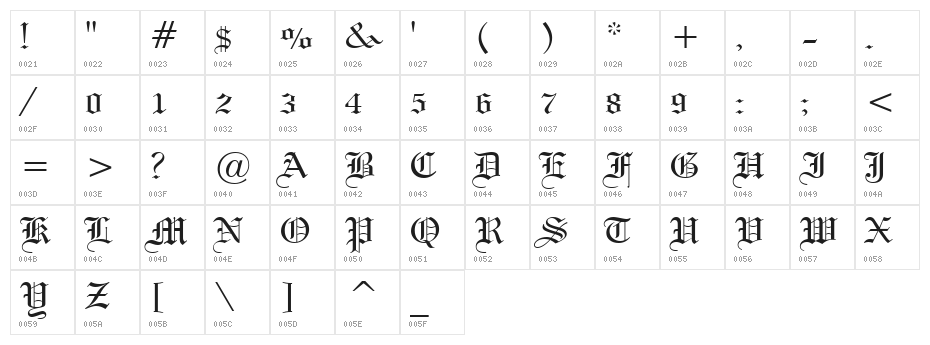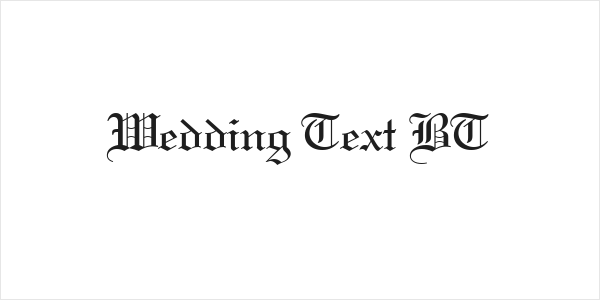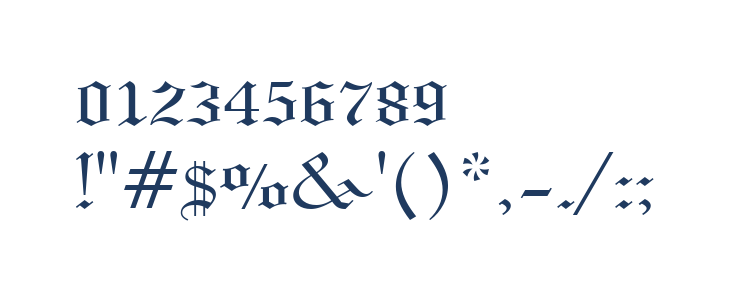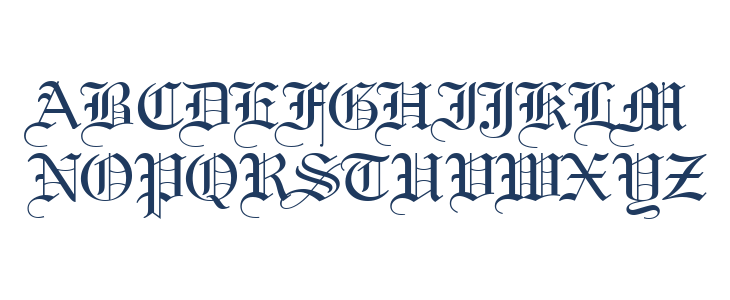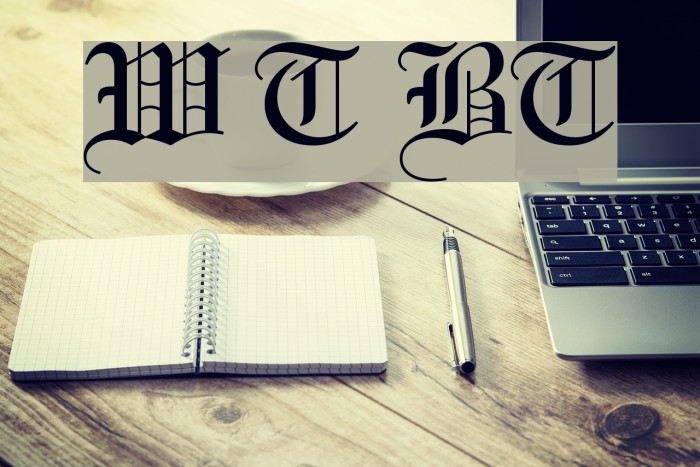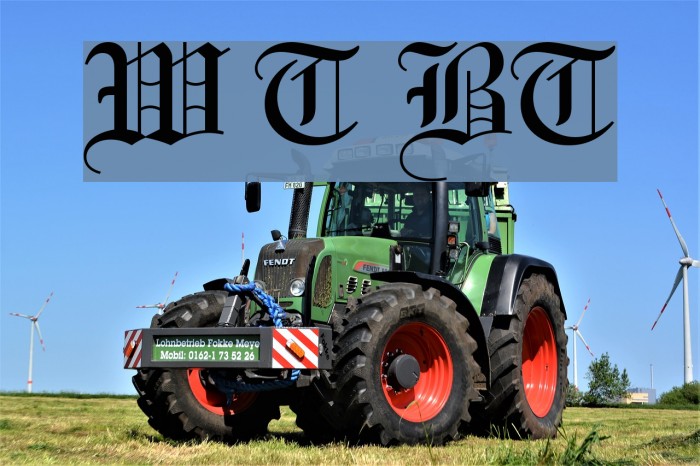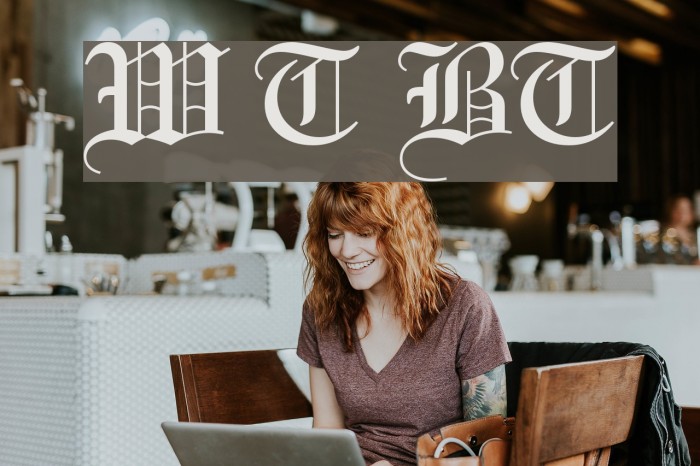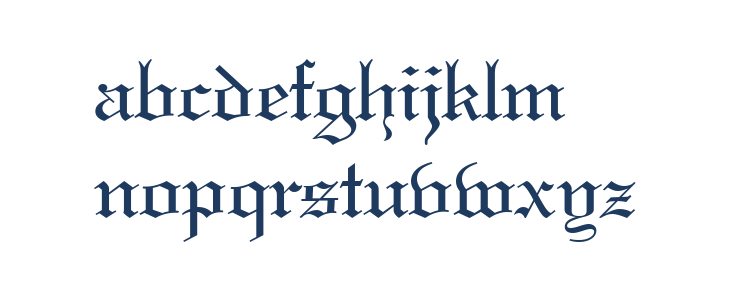
This font exudes a classic and elegant blackletter style, reminiscent of traditional calligraphy. The uppercase letters are adorned with intricate flourishes and sharp serifs, giving them a regal and formal appearance. The lowercase letters maintain a consistent style, with angular strokes and a slightly condensed form. Numbers and special characters are designed to match the ornate style, ensuring a cohesive look across all text. The overall design is highly decorative, making it ideal for projects that require a touch of sophistication and historical charm.
| Proposed Projects | Ideal for wedding invitations, certificates, historical documents, and branding that requires a traditional and elegant touch. |